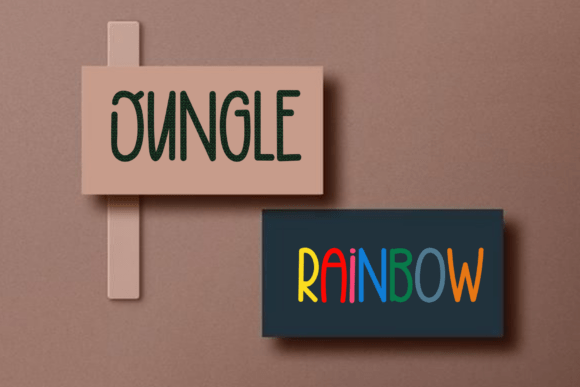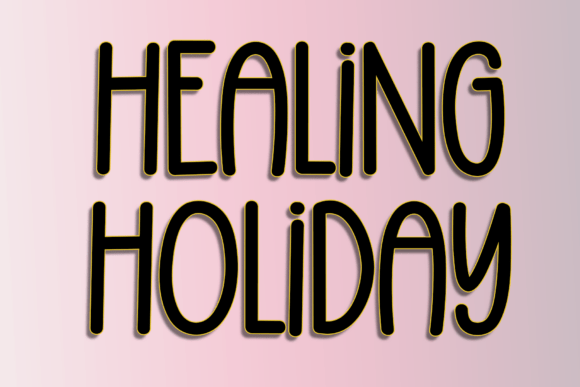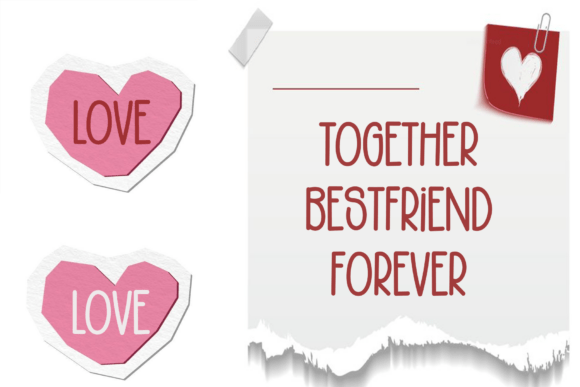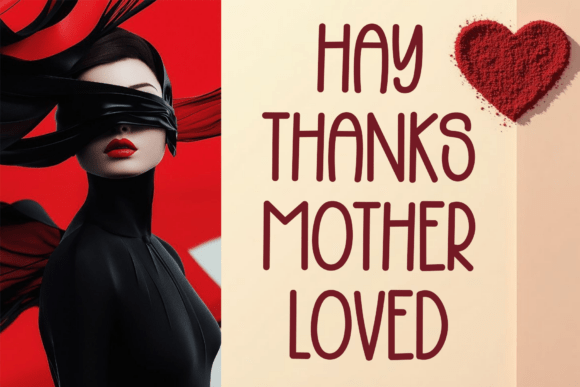
Cultural Font: Elevate Your Designs with Timeless Elegance
In the world of typography, a well-crafted font can make all the difference in elevating your designs from ordinary to extraordinary. Introducing Cultural Font, a stylish handwritten font that embodies the perfect blend of classic calligraphy and modern sophistication. With its impeccable form and balanced variation, Cultural Font is designed to add a touch of elegance and refinement to your projects.
Inspired by Timeless Classic Calligraphy
Cultural Font draws inspiration from the timeless classics of calligraphy, where the art of beautiful handwriting meets the precision of typography. The font’s creator aimed to capture the essence of traditional calligraphy, while infusing it with a contemporary twist that makes it perfect for modern designs. The result is a font that exudes sophistication, elegance, and a deep sense of tradition.
Contemporary Atmosphere and Impeccable Form
What sets Cultural Font apart is its unique blend of classic and modern elements. The font boasts a contemporary atmosphere, making it perfect for designers who want to add a touch of modernity to their work. At the same time, its impeccable form ensures that it remains true to the principles of traditional calligraphy. This balance makes Cultural Font an incredibly versatile font that can be used in a wide range of design applications.
Balanced and Varied
One of the standout features of Cultural Font is its balanced and varied design. The font features a range of characters, each carefully crafted to ensure that they work harmoniously together. This balance and variation make it perfect for use in body text, headings, and titles, where clarity and legibility are paramount. Whether you’re working on a branding project, a website, or a print design, Cultural Font is sure to deliver.
Enhance the Beauty of Your Projects
Cultural Font is more than just a font – it’s a design tool that can elevate the beauty of your projects. With its elegant lines, precise curves, and classic charm, this font can add a touch of sophistication to even the most mundane design tasks. Whether you’re a seasoned designer or a crafty DIY enthusiast, Cultural Font is the perfect choice for anyone looking to add a touch of elegance to their work.
Cultural Font is a perfect fit for designers and crafters who want to add a touch of classic elegance to their work. Whether you’re working on a client project or a personal craft project, this font is sure to impress. Here are just a few ways you can use Cultural Font to enhance your designs:
- Branding and Logo Design: Use Cultural Font to create elegant and sophisticated logos that make a lasting impression.
- Website Design: Add a touch of class to your website with Cultural Font, perfect for headings, titles, and body text.
- Print Design: Use Cultural Font to create stunning print designs, including brochures, flyers, and business cards.
- Crafting and DIY Projects: Add a touch of elegance to your crafting and DIY projects, including handmade cards, invitations, and scrapbooking.
In conclusion, Cultural Font is a stylish handwritten font that offers the perfect blend of classic calligraphy and modern sophistication. With its impeccable form, balanced variation, and elegant design, this font is sure to elevate the beauty of your projects. Whether you’re a designer or a crafter, Cultural Font is the perfect choice for anyone looking to add a touch of timeless elegance to their work.